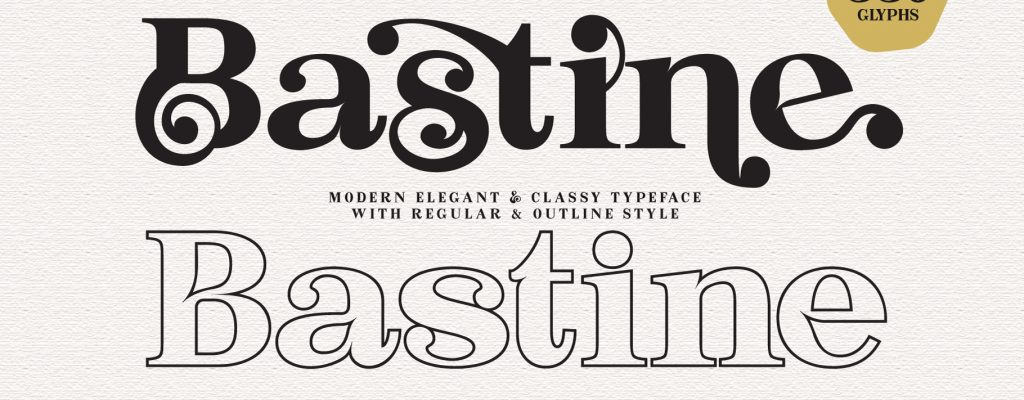
Bastine – Modern Classy Serif Font
Bastine is a modern and classy serif font with tons of special alternative glyphs and ligatures and create with special style, regular and outline.